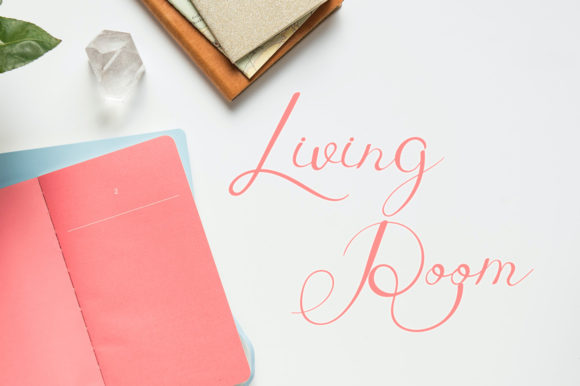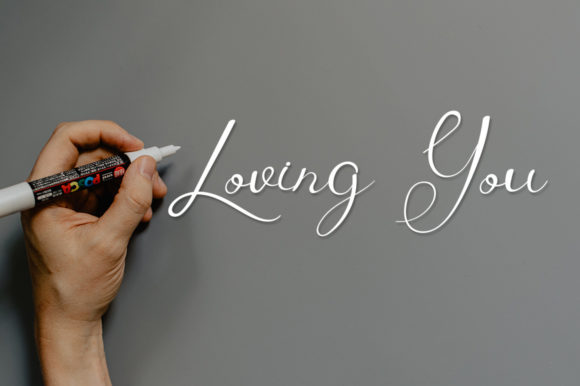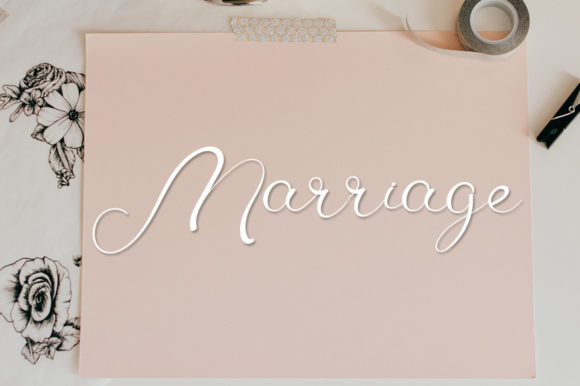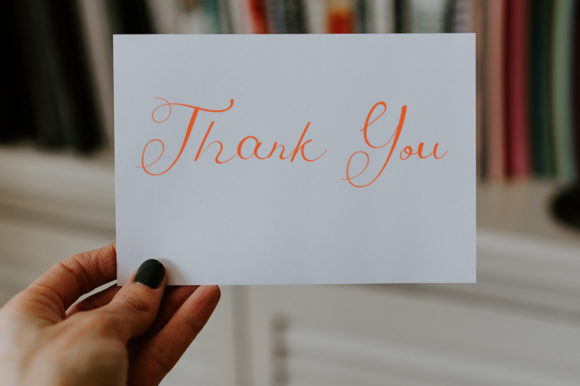
Introducing Charge Font: The Epitome of Sophistication and Elegance
In the realm of typography, few fonts manage to convey the essence of luxury and refinement as effortlessly as Charge Font. This chic, elegant script font has been meticulously designed to bring a touch of sophistication to any project, making it a versatile choice for designers and crafters alike. With its stylish alternates and ligatures, Charge Font stands out as a premier option for those seeking to elevate their designs.
The Design Philosophy Behind Charge Font
Charge Font is more than just a collection of letters; it’s an experience. Its design is rooted in the principles of classic elegance, yet it carries a modern twist that sets it apart from more traditional script fonts. Each character in Charge Font has been carefully crafted to ensure that it not only stands alone beautifully but also flows seamlessly with others, creating a harmonious and visually appealing text.
Key Features of Charge Font
- Stylish Alternates: One of the standout features of Charge Font is its set of stylish alternates. These variations allow designers to add a unique touch to their work, preventing the repetition that can make text look monotonous. Whether you’re working on a logo, a heading, or a body of text, these alternates provide the flexibility to keep your design fresh and engaging.
- Ligatures: Charge Font also boasts an impressive set of ligatures, which are special characters that combine two or more letters into one. These ligatures not only add to the font’s aesthetic appeal but also enhance readability, making it perfect for both digital and print projects.
- Elegance and Versatility: The true strength of Charge Font lies in its ability to adapt to various design needs. From luxury branding and high-end fashion to wedding invitations and editorial design, Charge Font brings a level of sophistication that elevates any project.
Applications of Charge Font
The versatility of Charge Font makes it suitable for a wide range of applications. Here are a few ideas to get you started:
- Branding and Logos: Use Charge Font to create a lasting impression with your brand’s logo or as part of your overall branding strategy. Its elegant appearance can help convey a sense of luxury and professionalism.
- Wedding and Event Stationery: Add a touch of class to your wedding invitations, save-the-date cards, or event programs. Charge Font’s refined look is sure to set the tone for a sophisticated and memorable occasion.
- Fashion and Beauty: For fashion and beauty brands, Charge Font offers a stylish way to communicate your brand’s message. Whether it’s for a logo, packaging, or advertising materials, this font can help you connect with your audience on a more luxurious level.
- Editorial and Digital Content: Charge Font can also be used in editorial projects such as magazines, blogs, and digital publications. Its readability and elegance make it an excellent choice for headings, pull quotes, and other highlighted text.
Why Choose Charge Font?
In a world where first impressions are crucial, Charge Font offers a way to stand out from the crowd. Its unique blend of classic elegance and modern sophistication makes it an invaluable tool for designers looking to create memorable and impactful work. Here are a few reasons why Charge Font should be your go-to choice:
- Unique and Memorable: With its distinctive alternates and ligatures, Charge Font allows you to create designs that are not only beautiful but also unique.
- High Versatility: Whether you’re working on a digital project or a print design, Charge Font adapts seamlessly, ensuring your work looks great across all mediums.
- Easy to Read: Despite its elegant appearance, Charge Font remains highly legible, making it suitable for both headings and body text.
Charge Font is more than just a script font; it’s a design statement. Its blend of elegance, sophistication, and versatility makes it an essential tool for designers and crafters looking to elevate their projects. With Charge Font, you can add a touch of luxury to your work, making it stand out in a crowded design landscape. Whether you’re aiming for a classic look or something more contemporary, Charge Font is the perfect choice for bringing your creative vision to life.